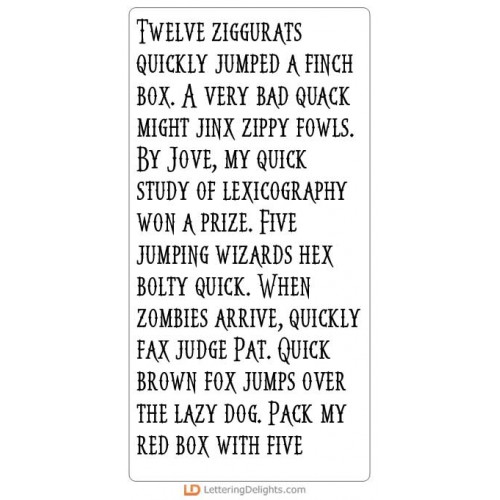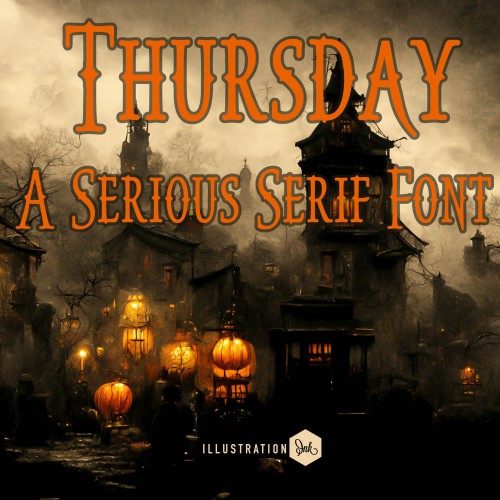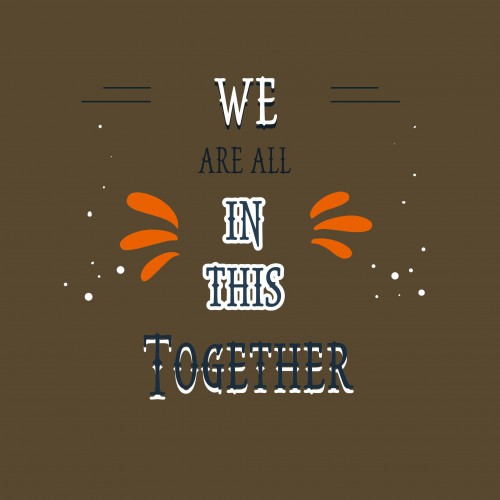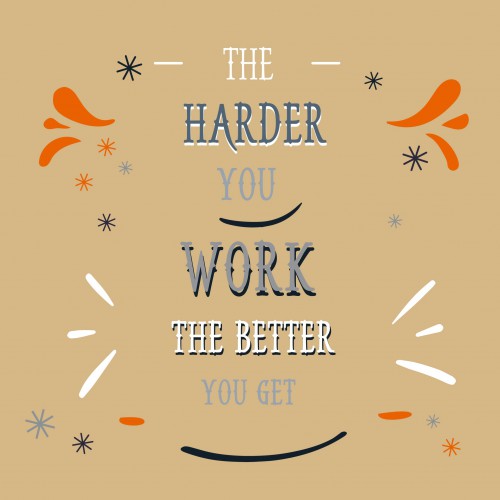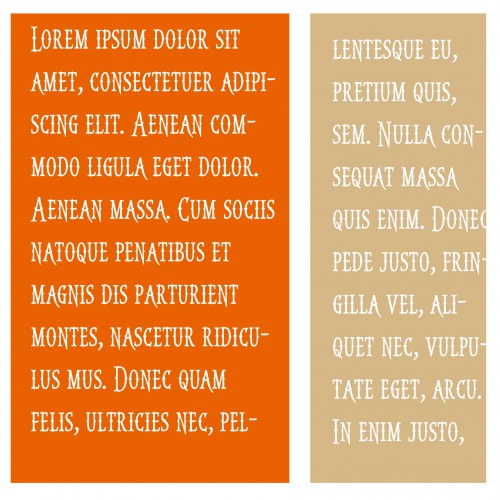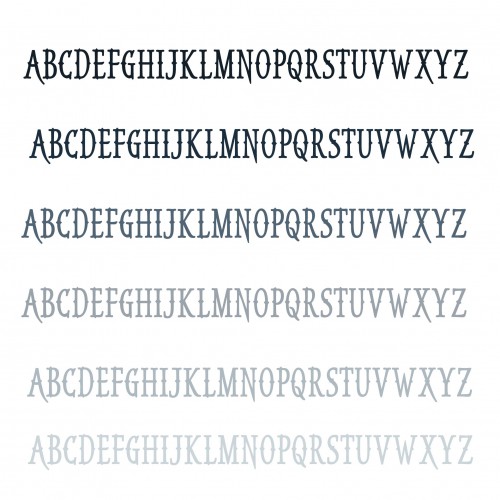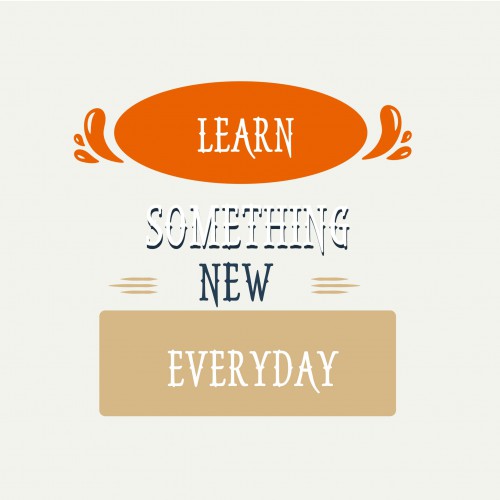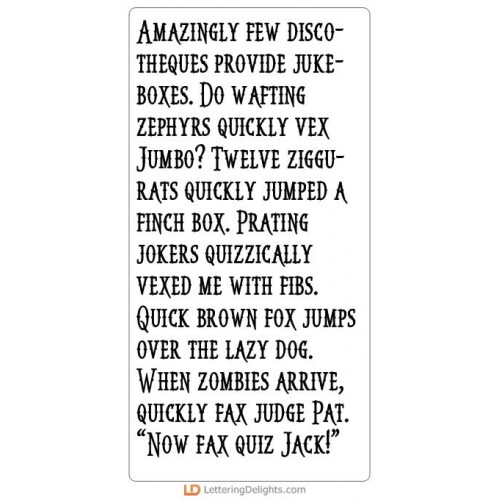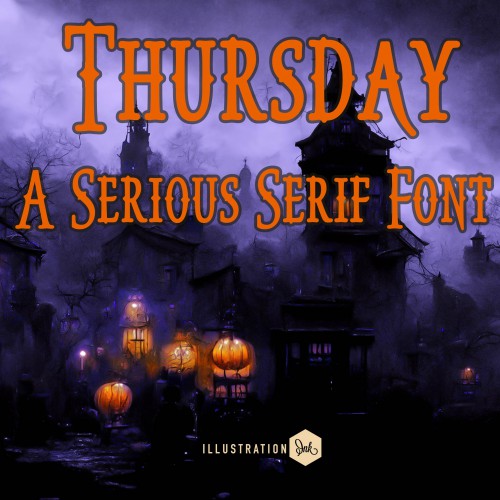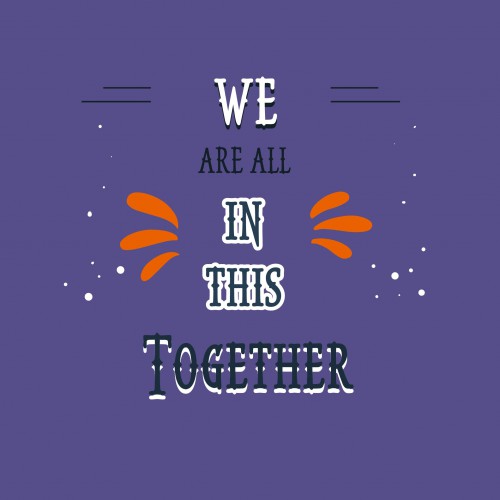
Gothic Wednesdays - Big Bundle
This fun bundle features images of classic spooky characters perfect for cards,crafts,gifts, planner stickers, Halloween, parties, decor, and more!
ZP Catholic School - FN
This black letter font is hand crafted but maintains a formal feel...
ZP Catholic School Bold - FN
This black letter font is hand crafted but maintains a formal feel...
ZP Thursday - FN
This serif font has a bit of a whimsical and kooky feel...
ZP Thursday Bold - FN
This serif font has a bit of a whimsical and kooky feel...
ZP Orange Blossom - FN
This hand-written script is a hand-crafted cursive with a whimsy feel...
ZP Orange Blossom Bold - FN
This hand-written script is a hand-crafted cursive with a whimsy feel...
DB Gothic Wednesdays - DB
This fun doodlebat font features 26 images of classic spooky characters perfect for cards,crafts,gif..
DB Gothic Wednesdays - Too - DB
This fun doodlebat font features 26 images of classic spooky characters perfect for cards,crafts,gif..